Drop
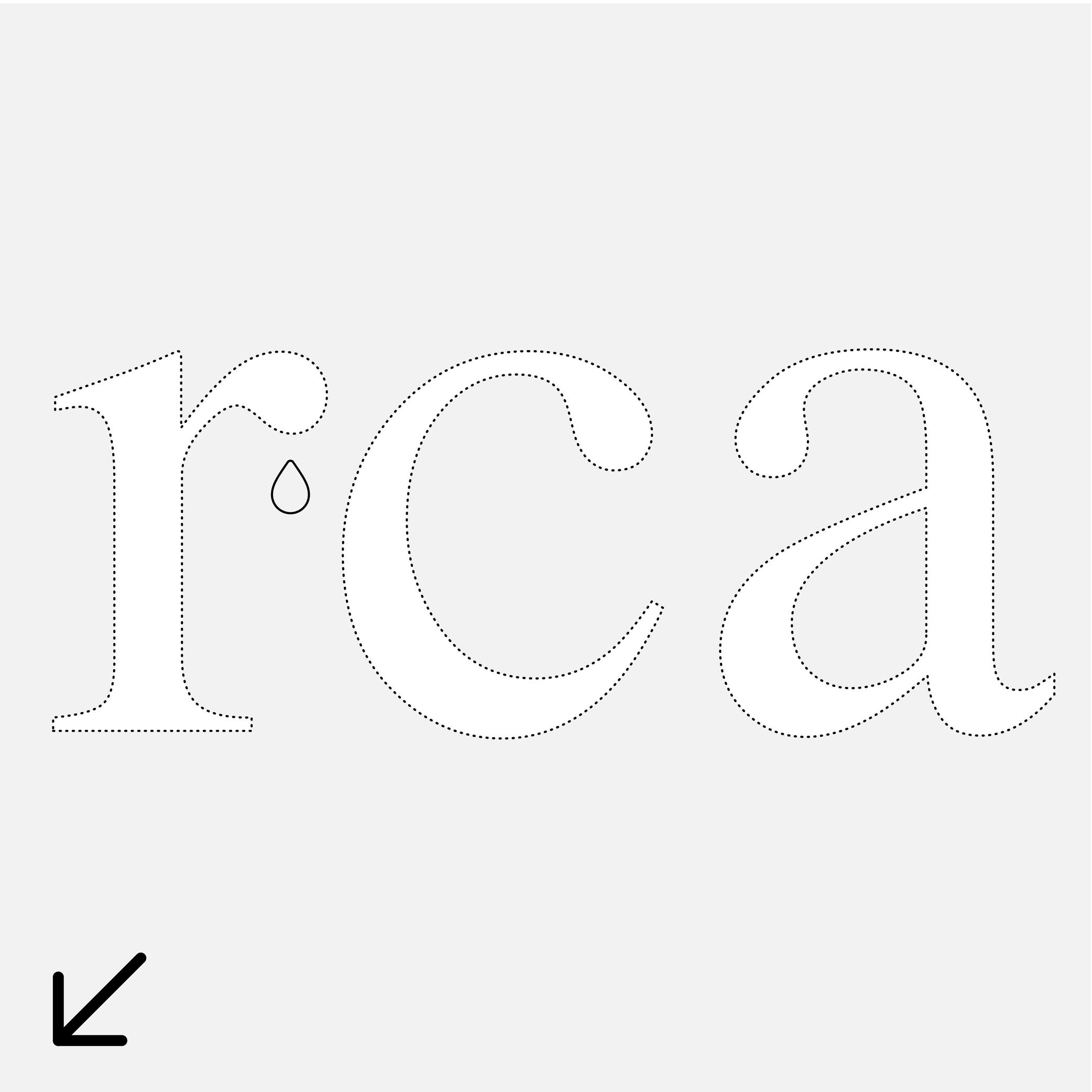
Many terms are borrowed from architecture or human and animal anatomy to designate and describe parts of letters and other characters. We even speak of type design anatomy.
For Latin script, the drop refers to the top hanging part of r or a that looks like a drop falling downward, generally present in serif style fonts.